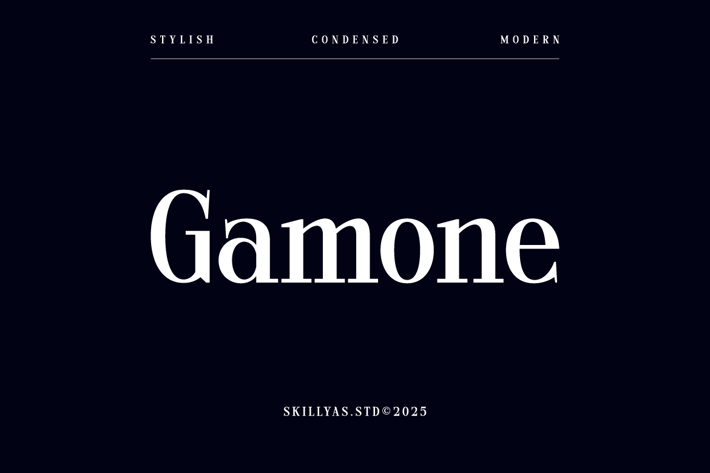
Gamone Display Serif Font
Gamone is a Stylish, Modern Serif Font with Elegant Curves and a Strong Character. Perfect for Branding, Editorial Design, and Luxury Projects, it adds sophistication and timeless appeal to any design.
Character:
- Uppercase & Lowercase Letters
- Punctuation & Symbols Support
- PUA encoded Range Standard Alternative Style
- Ligature (Standard and Discretionary)